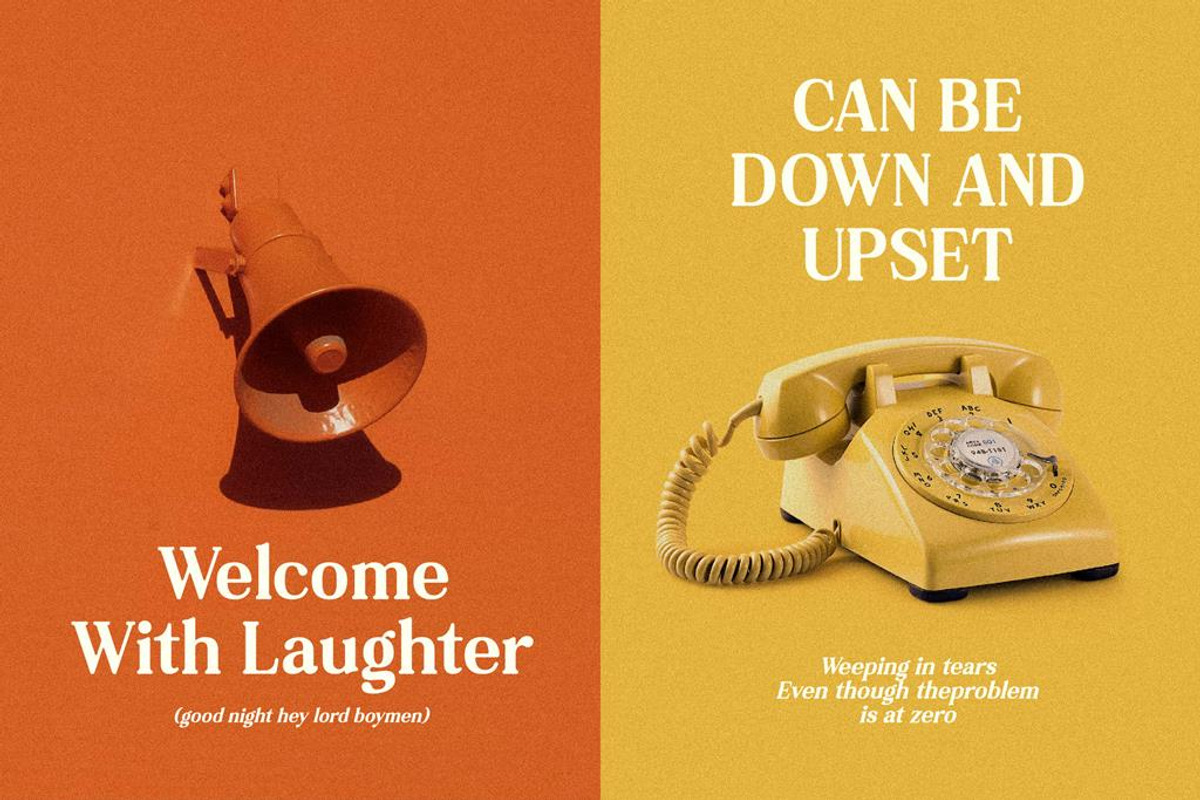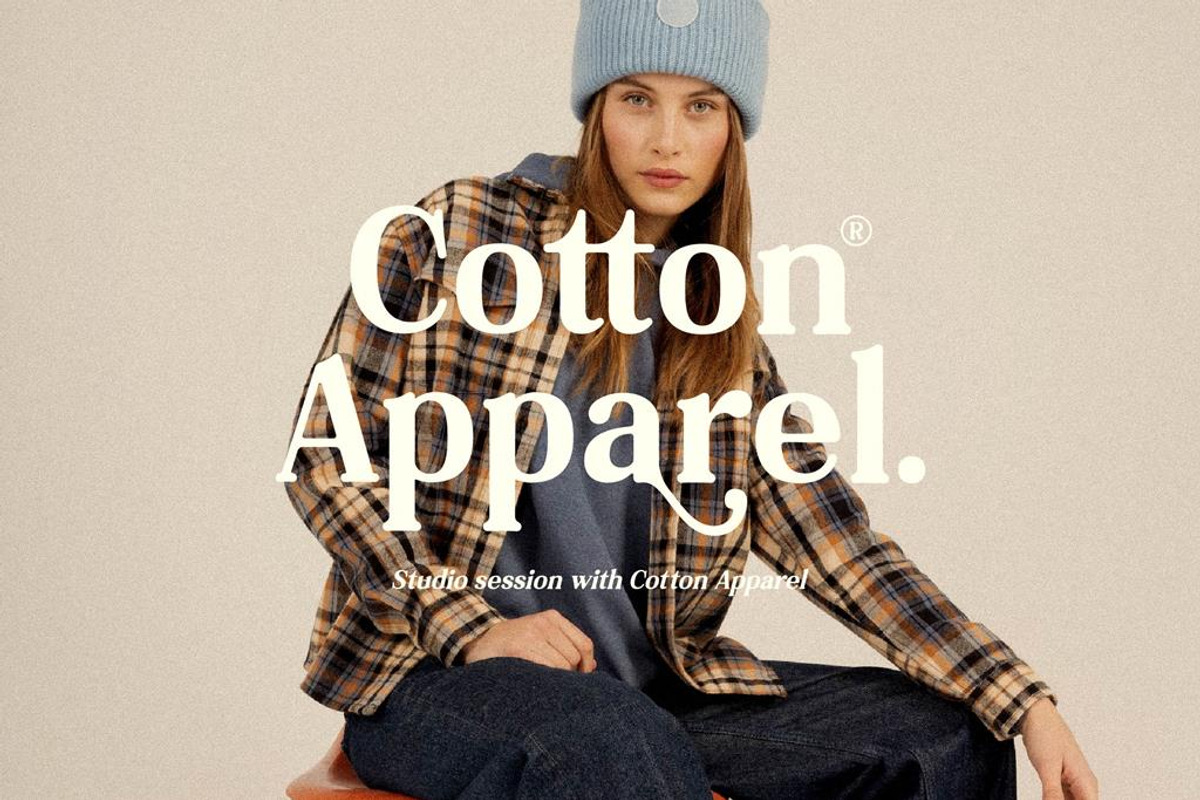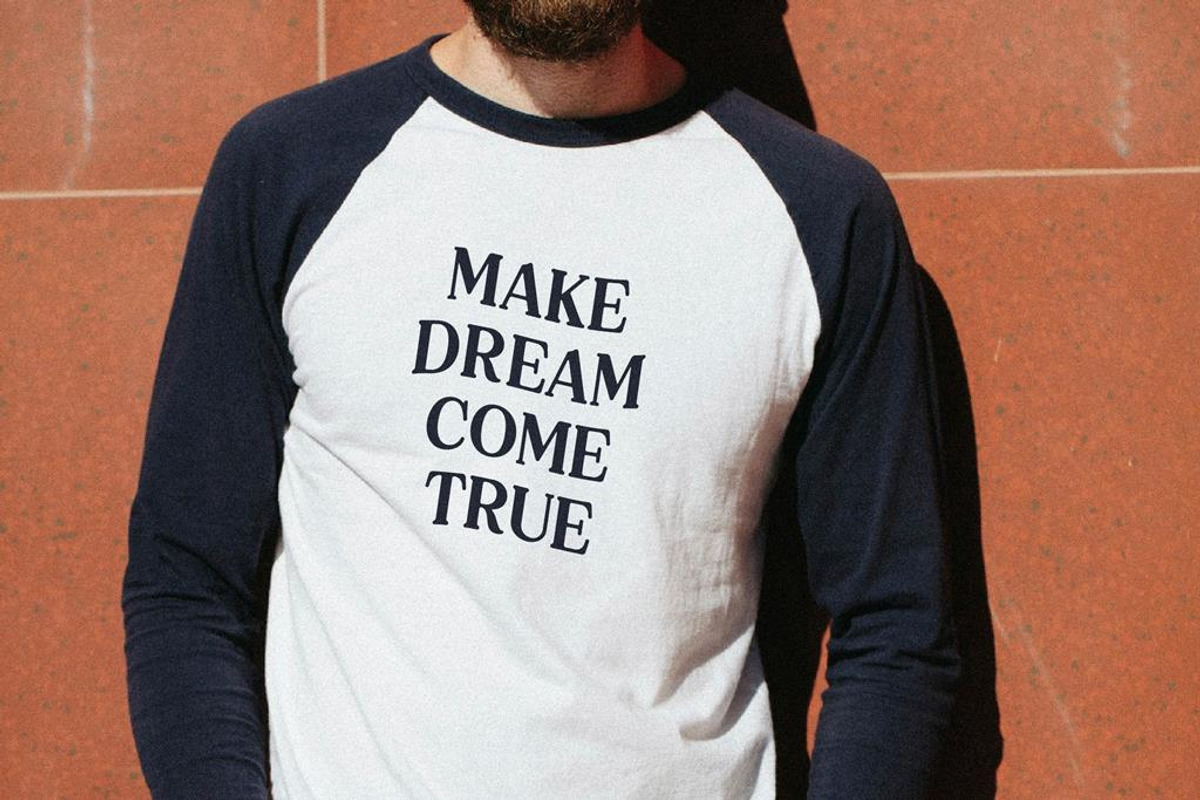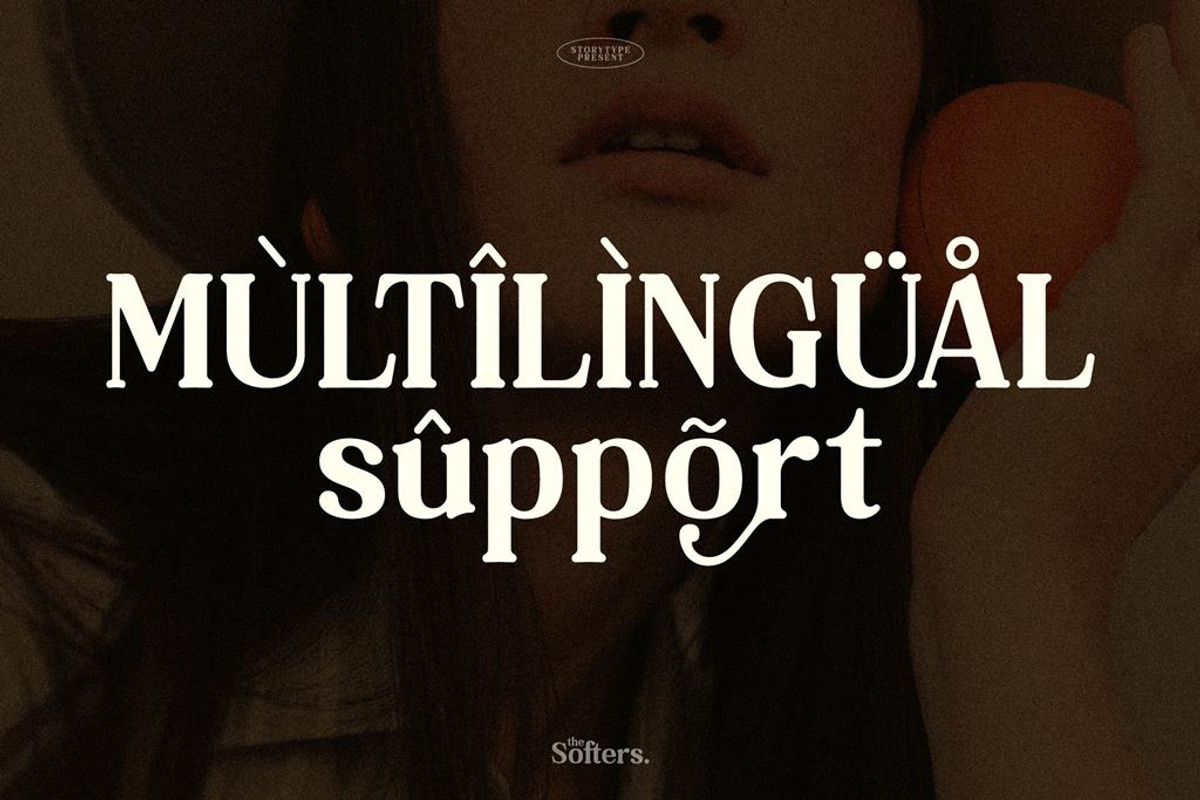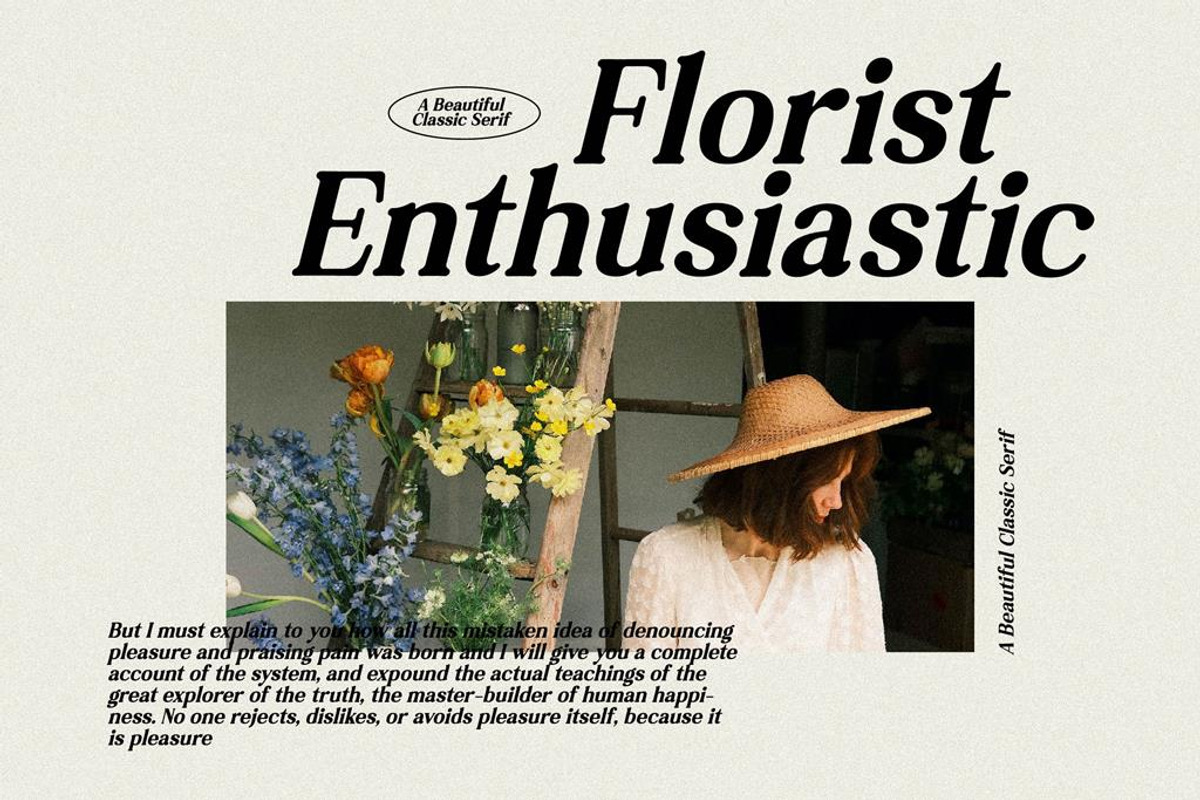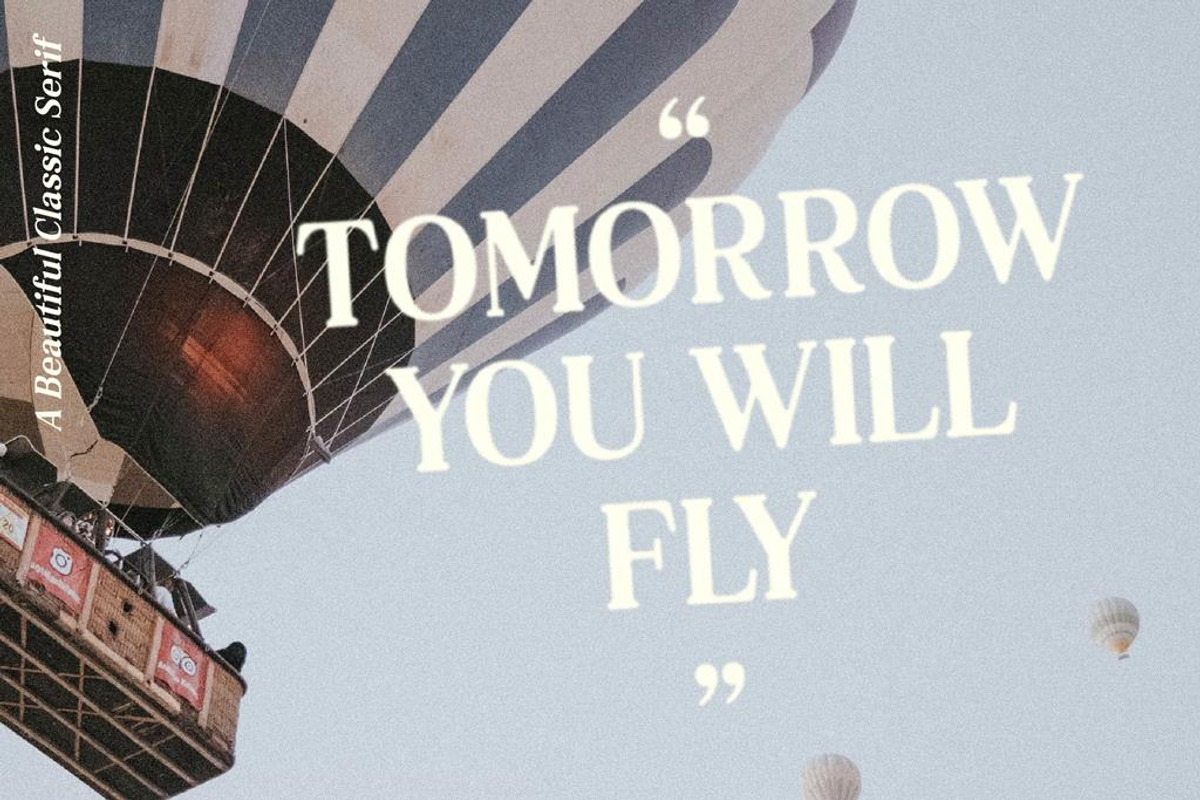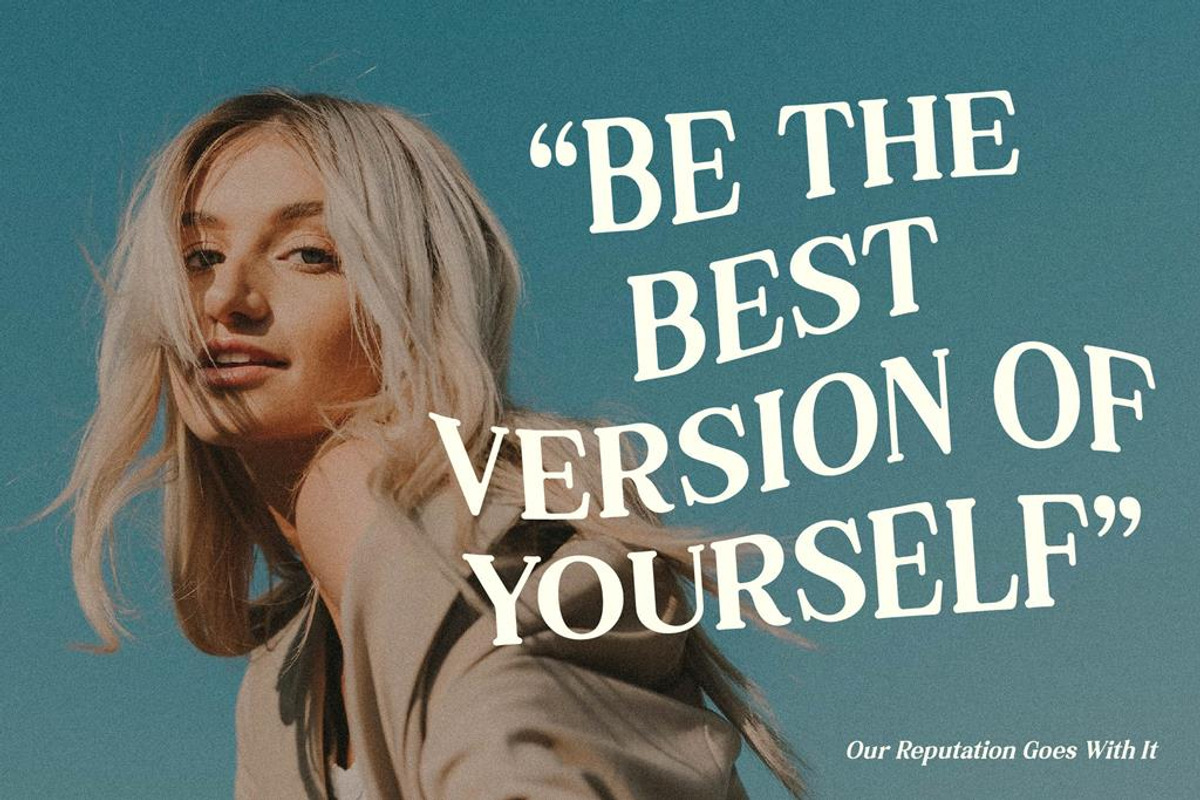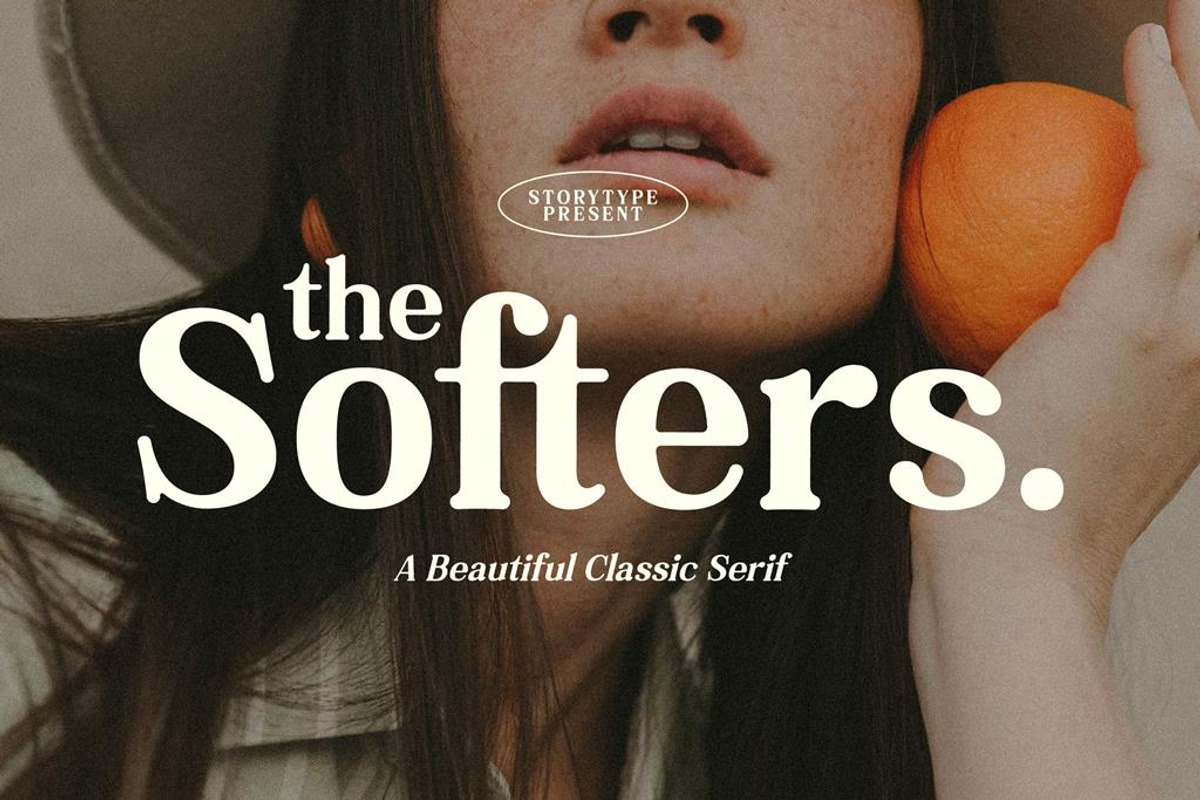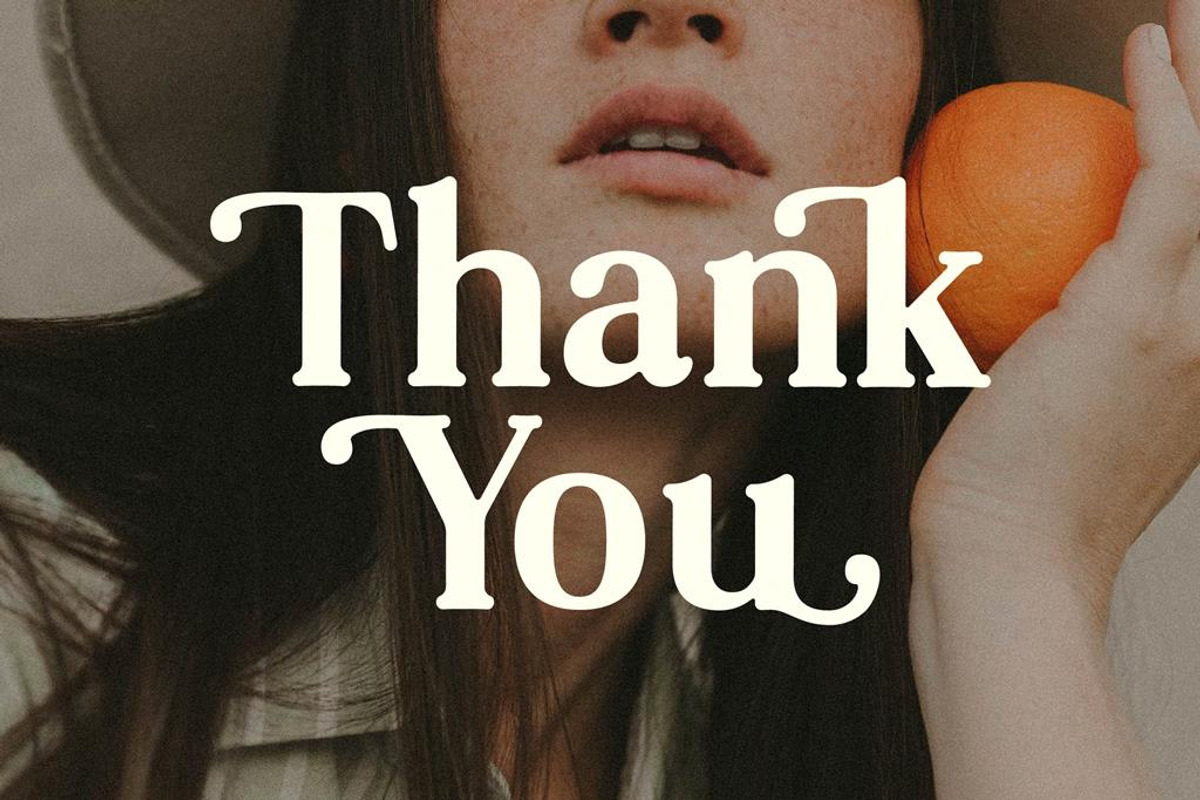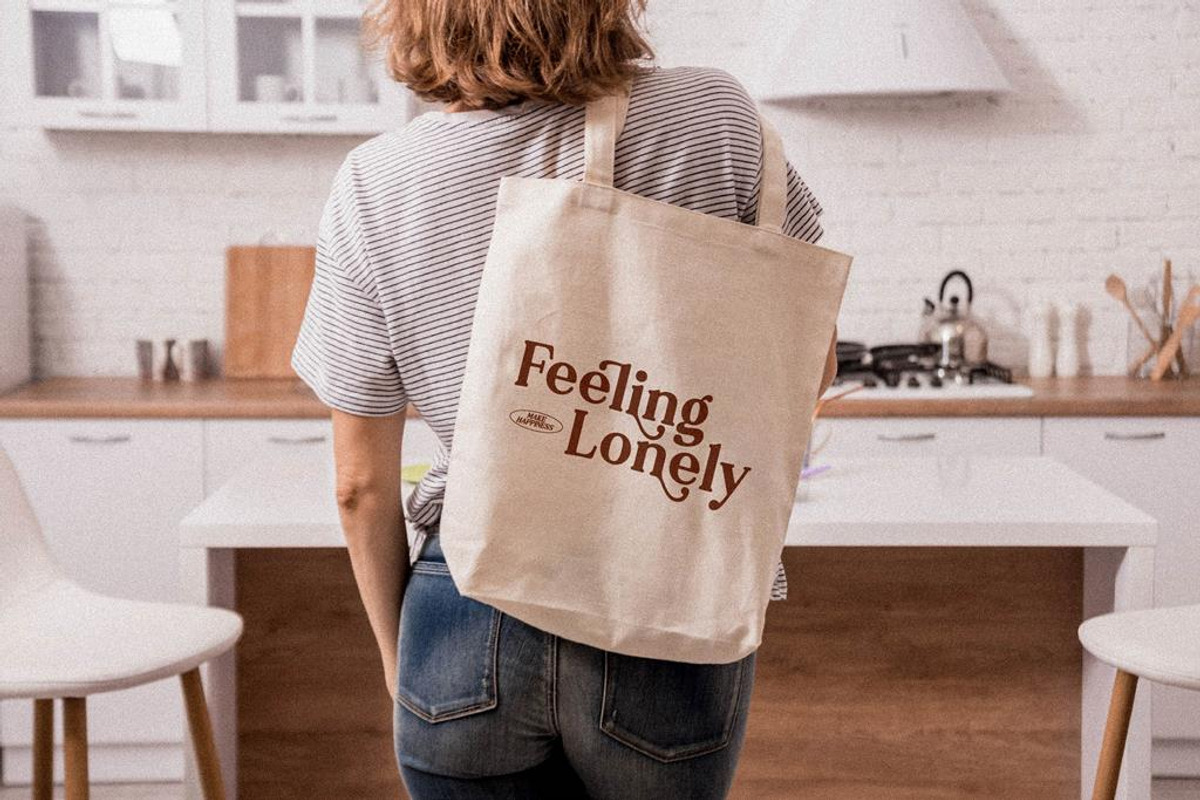
Softers Beautiful Classic Serif Font
Proudly present Softers Typeface , created by Storytype, A serif modern and classic typeface that has own unique style & modern look. This typeface is perfect for an elegant & luxury logo, book or movie title design, fashion brand, magazine, clothes, lettering, quotes, and so much more.